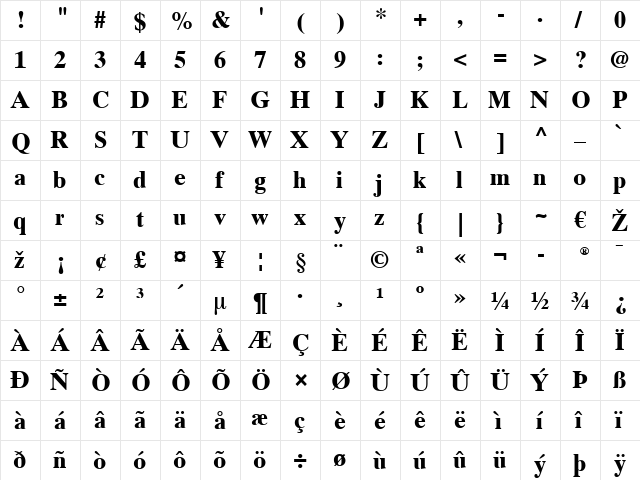
Times Ten CE Roman Bold
Design Context for Times Ten CE Roman Typeface
Times Ten CE Roman is a composed and adaptable typeface that performs quietly and consistently across a wide range of design contexts. Its bold stroke weight gives it real presence on the page.
Pro Tip: Pair Times Ten CE Roman with a font of contrasting weight or personality to build a more expressive typographic hierarchy.